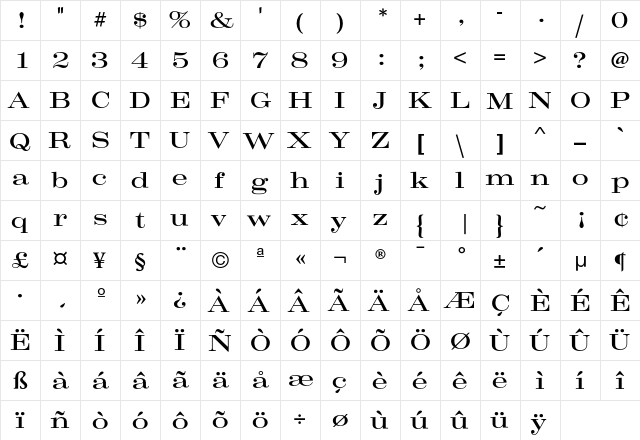
CrawModern-Rgl Regular
Design Context for CrawModern-Rgl Typeface
CrawModern-Rgl takes a measured approach to typography — its balanced proportions and neutral character make it a reliable workhorse for both digital and print work.